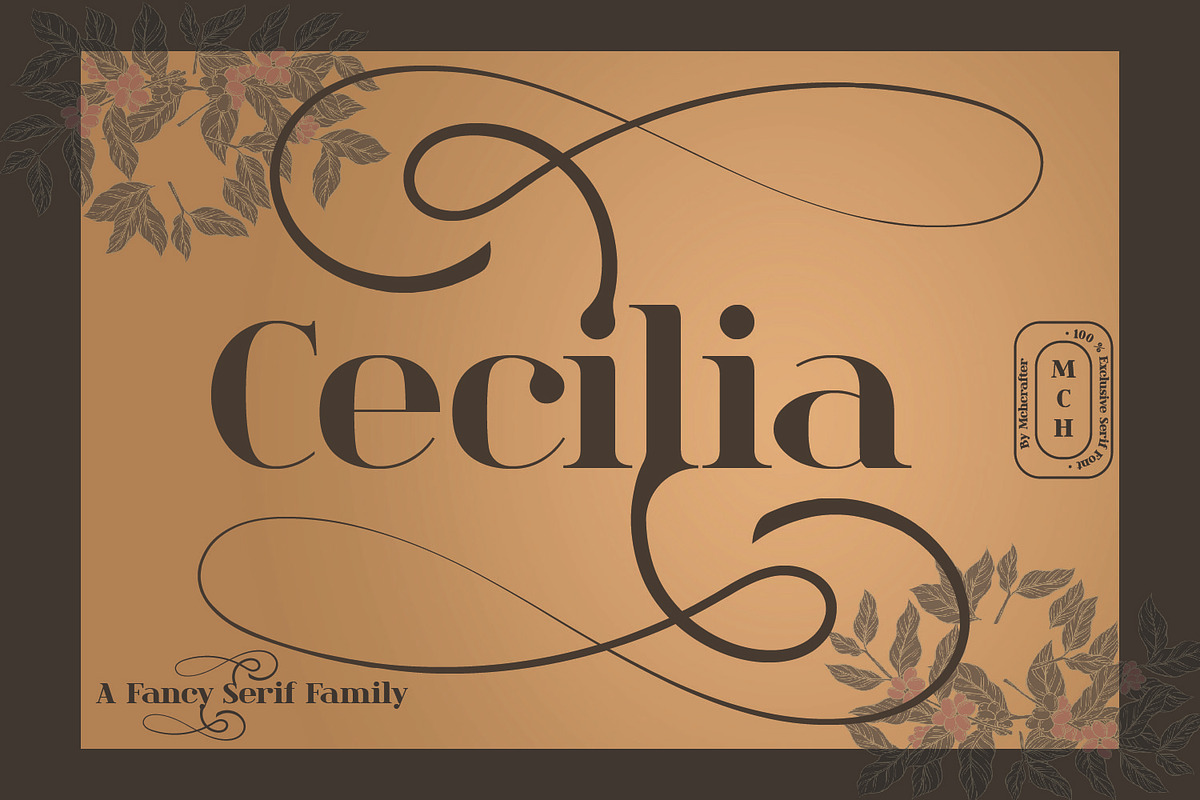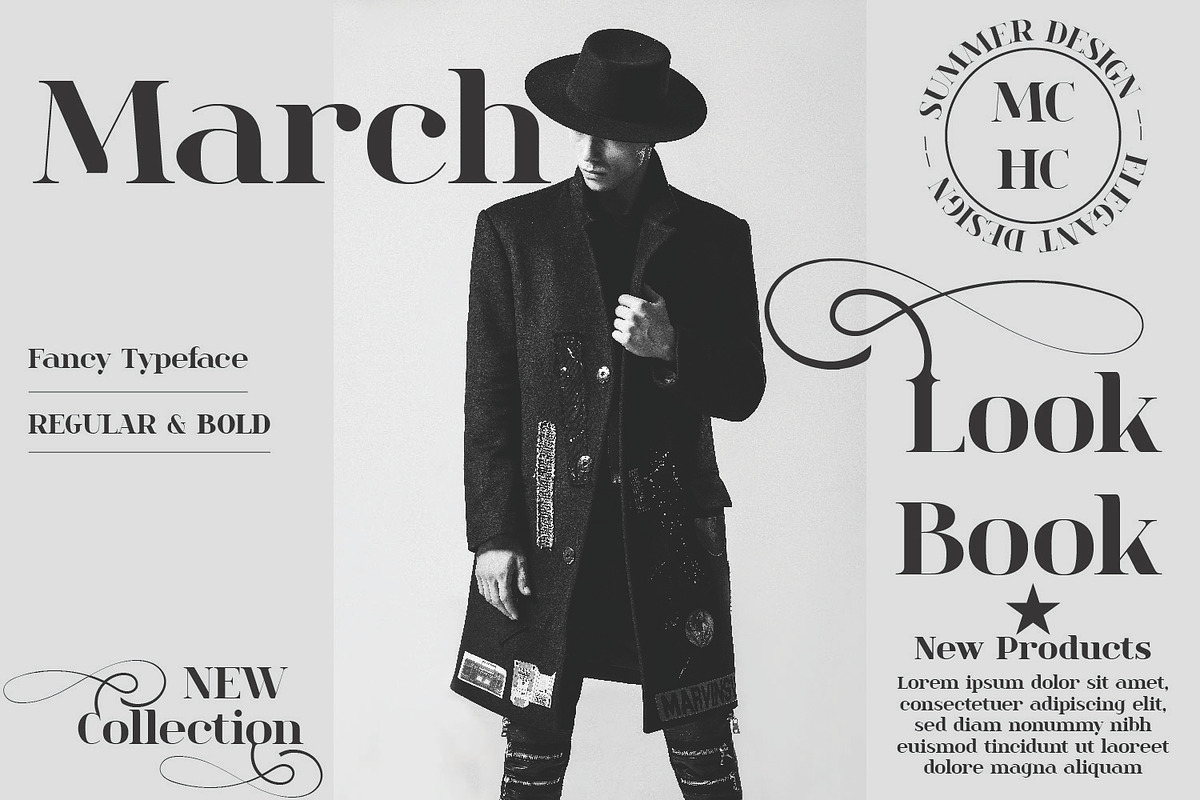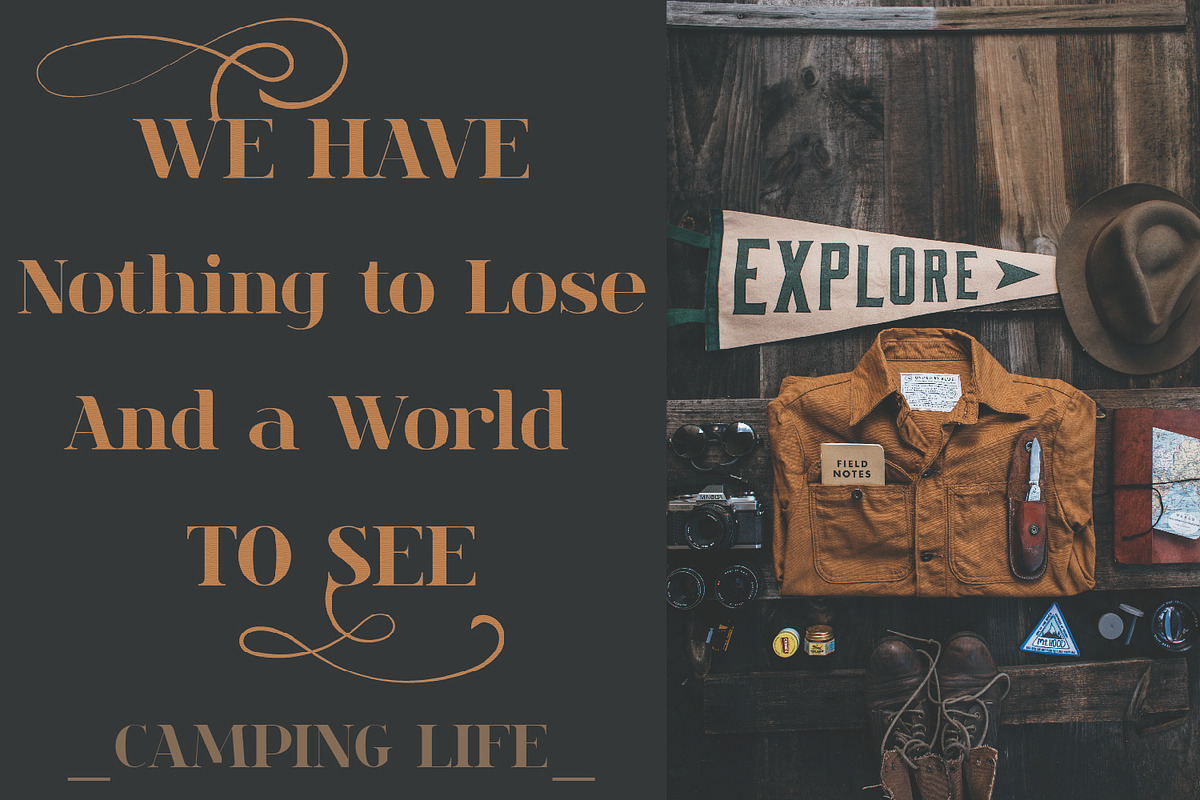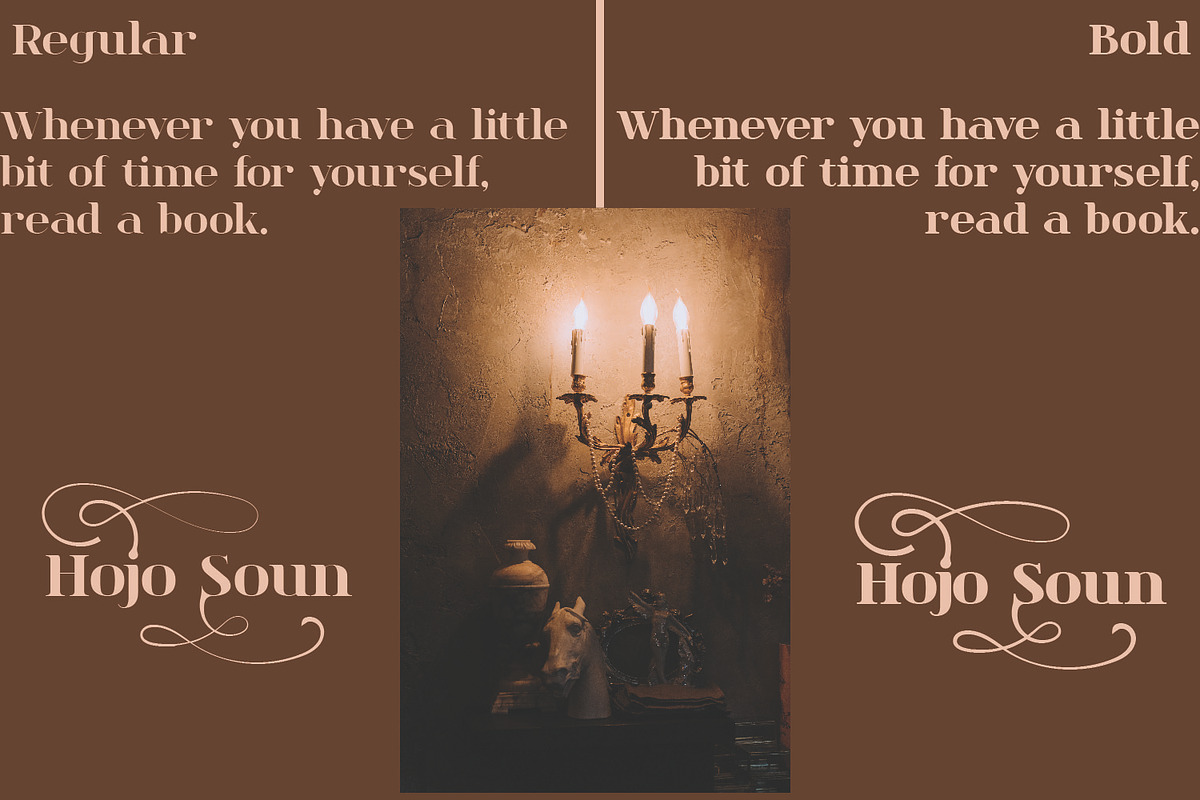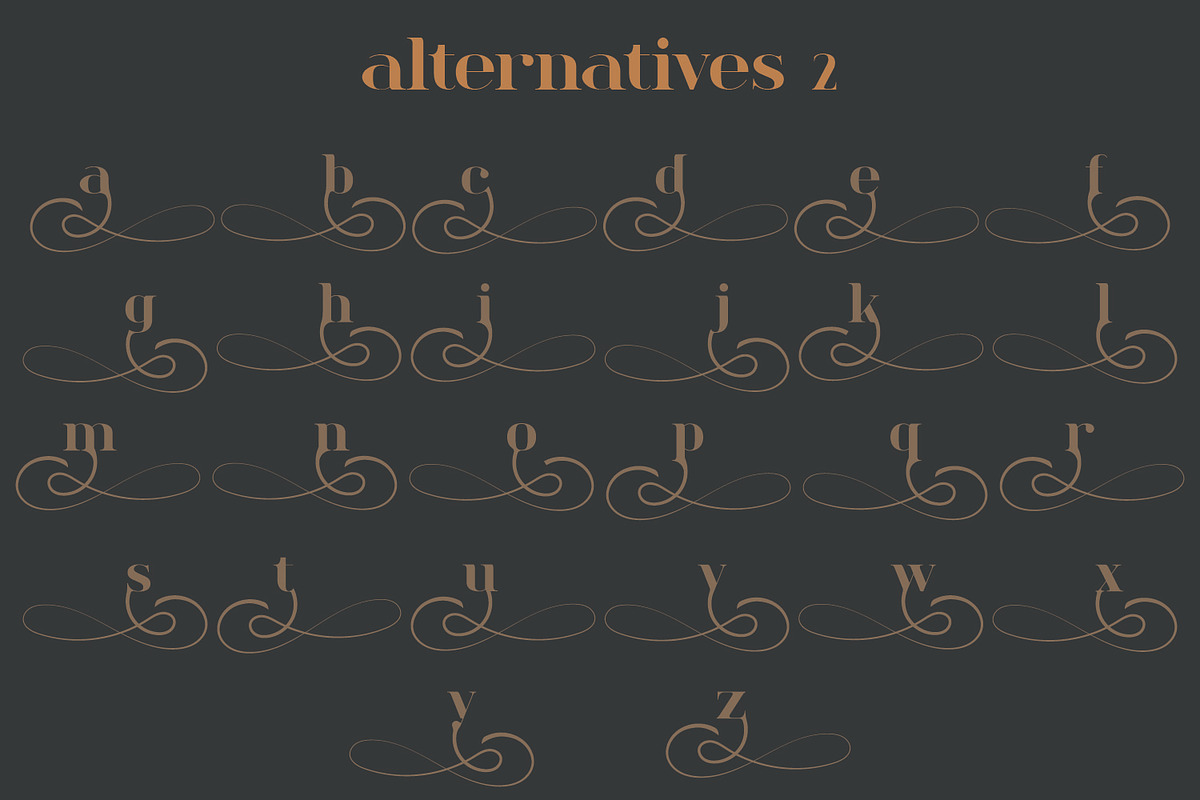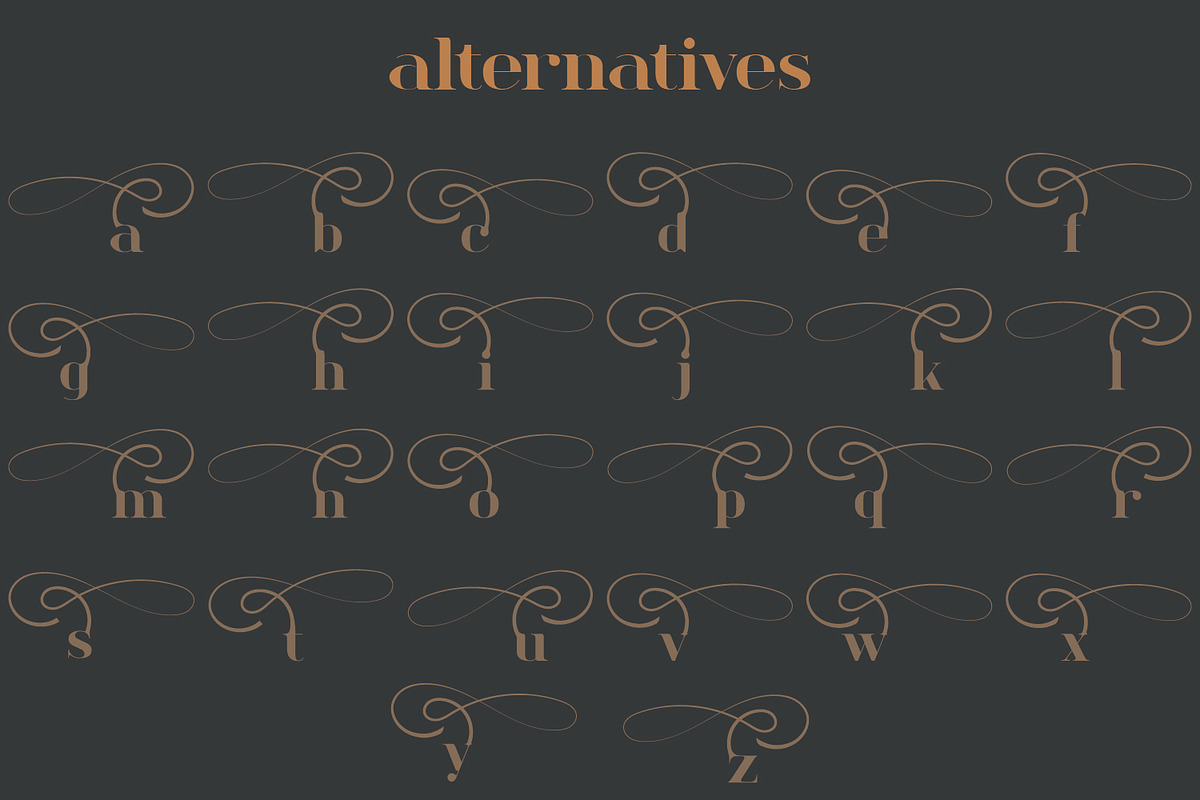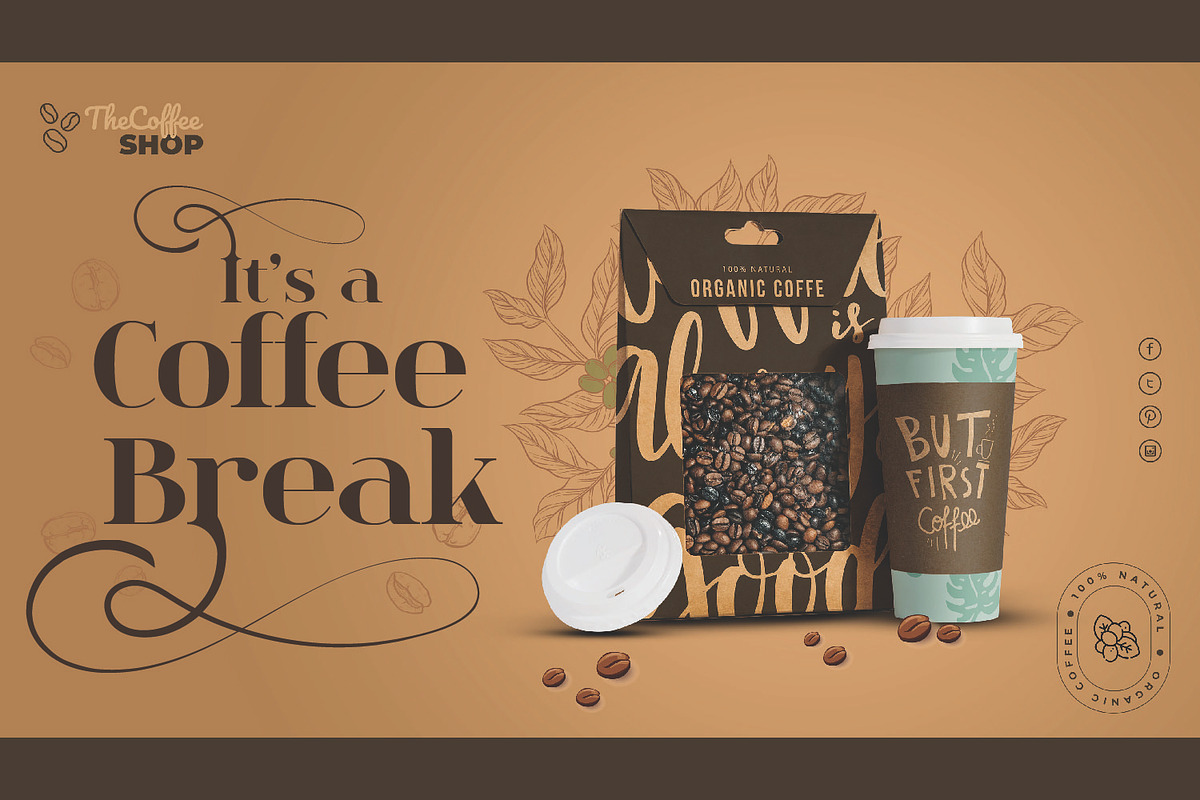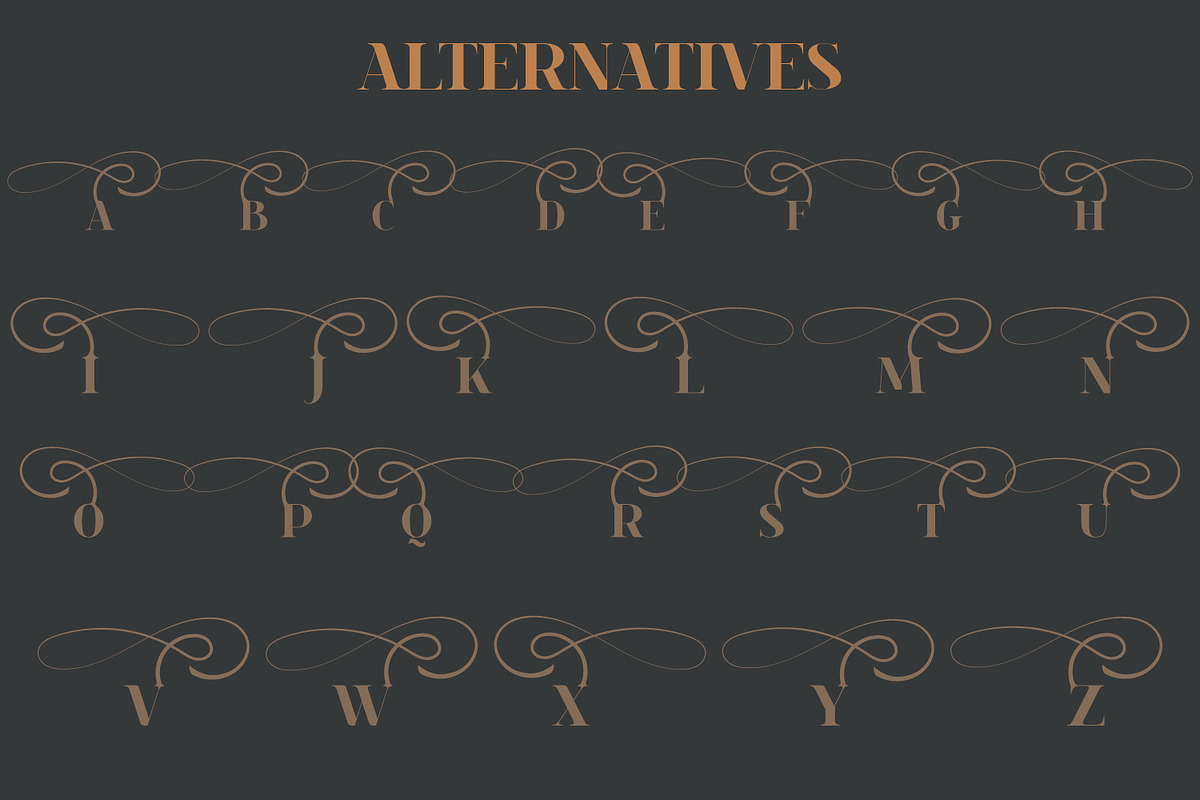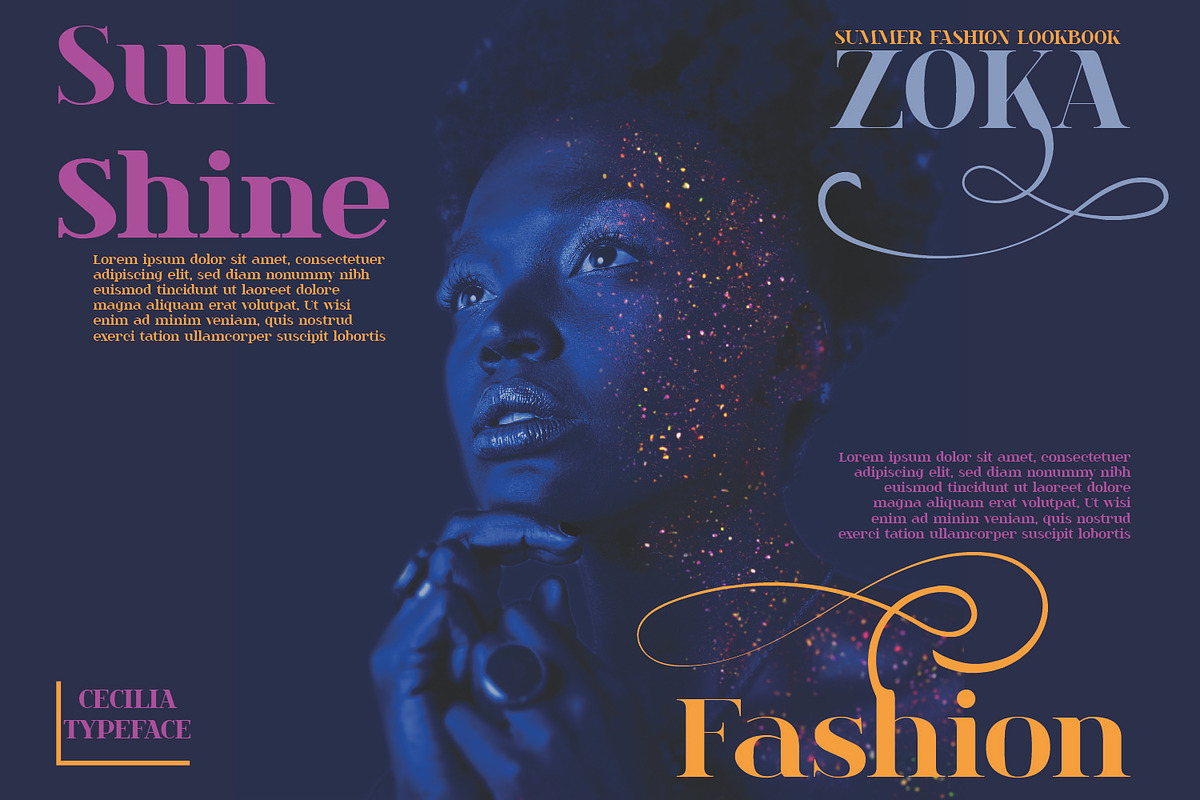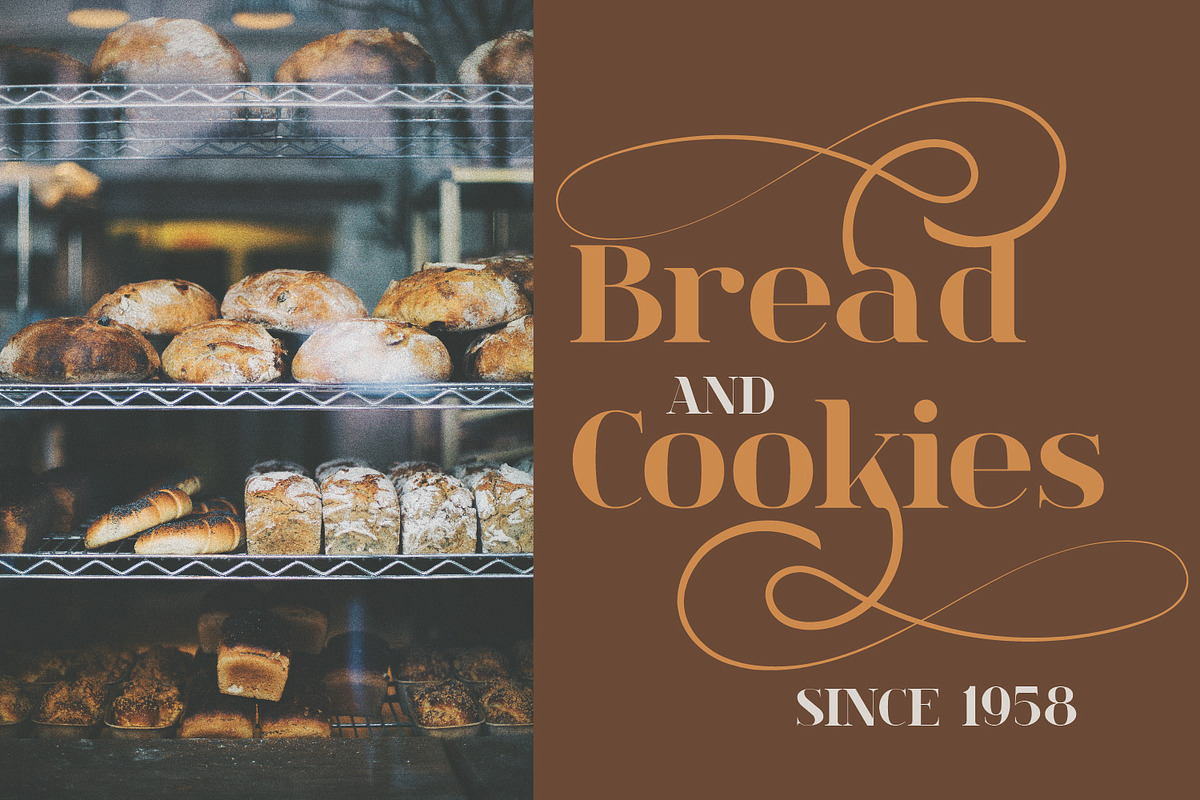
Cecilia | Fancy Serif Family
Cecilia font is a Bold Minimalist Elegant Modern vintage font with beautiful ligatures, tons of special alternative glyphs, ornament and multilingual support. It’s a very versatile font that works great in large and small sizes. Perfect for branding projects, Logo design, Clothing Branding, product packaging, magazine headers, or simply as a stylish text overlay to any background image.
Cecilia Features:
- 2 Weights font
- Lowercase and Uppercase
- Stylistic Alternates & Ligatures
- Multiple Languages Supported